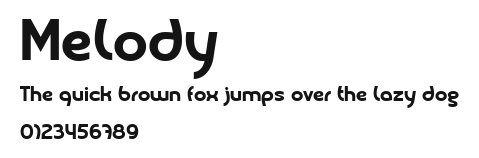
• Font Name: Melody
• Font Style: Melody
• Full Font Name: Melody Melody
• Designer: Beno”t Sjšholm
About Melody.ttf
Melody.ttf is a modern, elegant sans-serif font designed for ultimate readability and visual harmony. Perfect for branding, headlines, web design, and print materials.